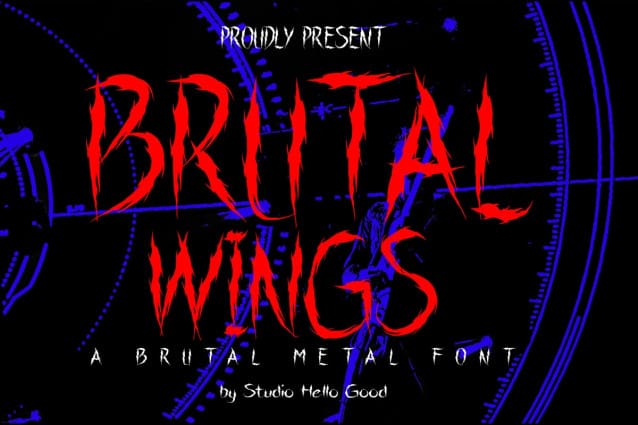
Brutal Wings Font
Brutal Wings Font, is a friendly, brush stroke font that looks at home in a wide range of designs! This font is a dry brush stroke script, and can give your designs an elegant yet completely modern look.